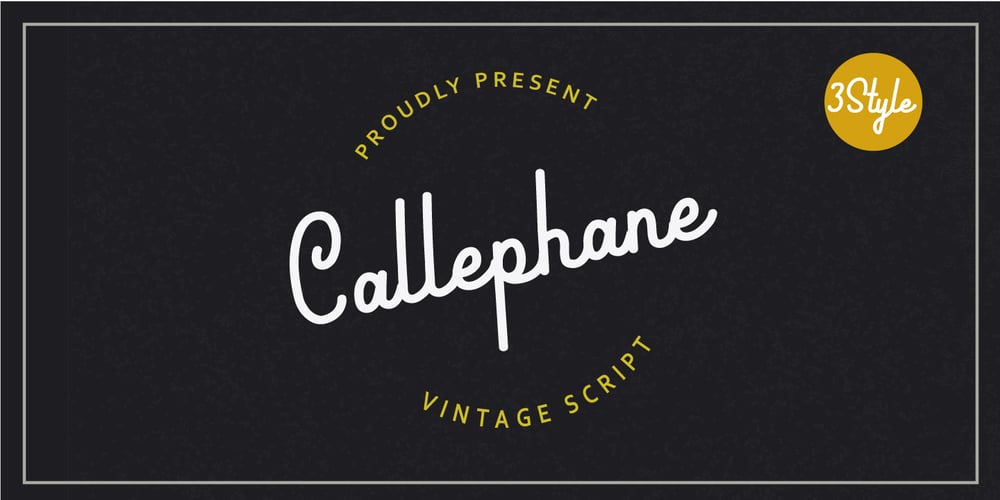
Callephane
Callephane font
Callephane Font Family was designed by Agam Rahmadan and published by Viswell. Callephane contains 3 styles and family package options. Callephane is our newest font. Its retro style is inspired by a unique design in the 60s.This fonts is perfect for any project, posters, clothing, labels, logos, badges, and many more, that would benefit from a retro look.Callephane has 3 styles: Light, Regular and Rough.